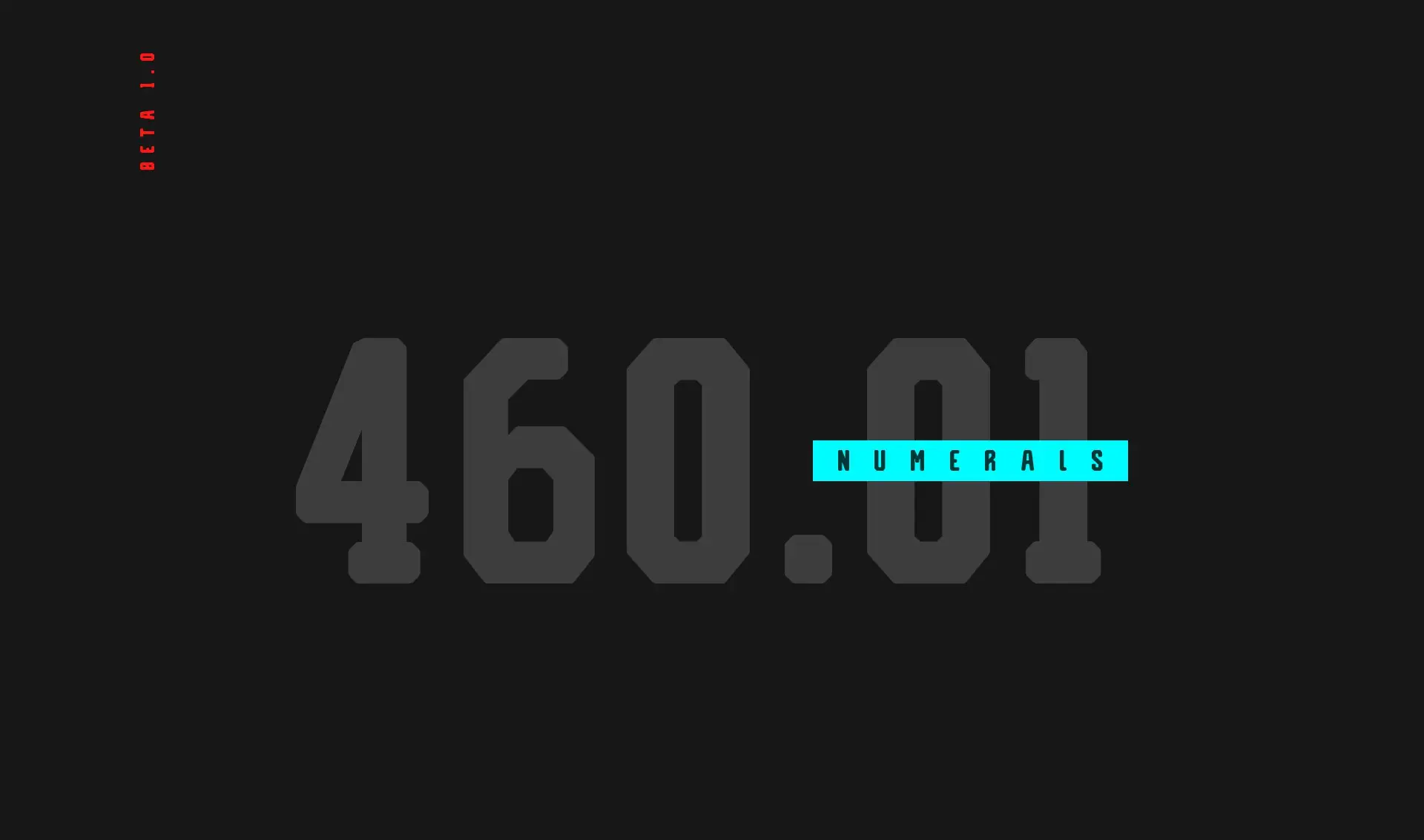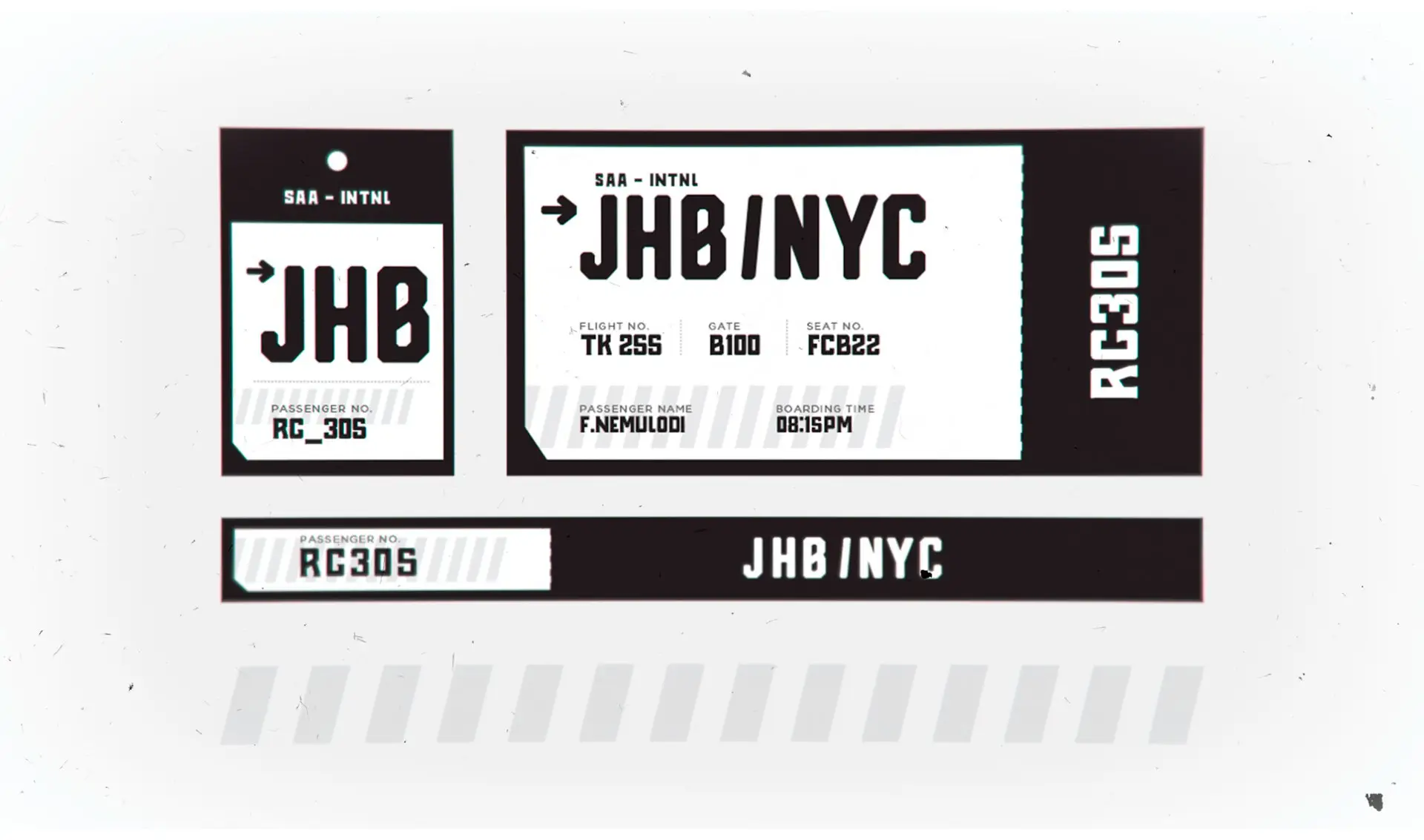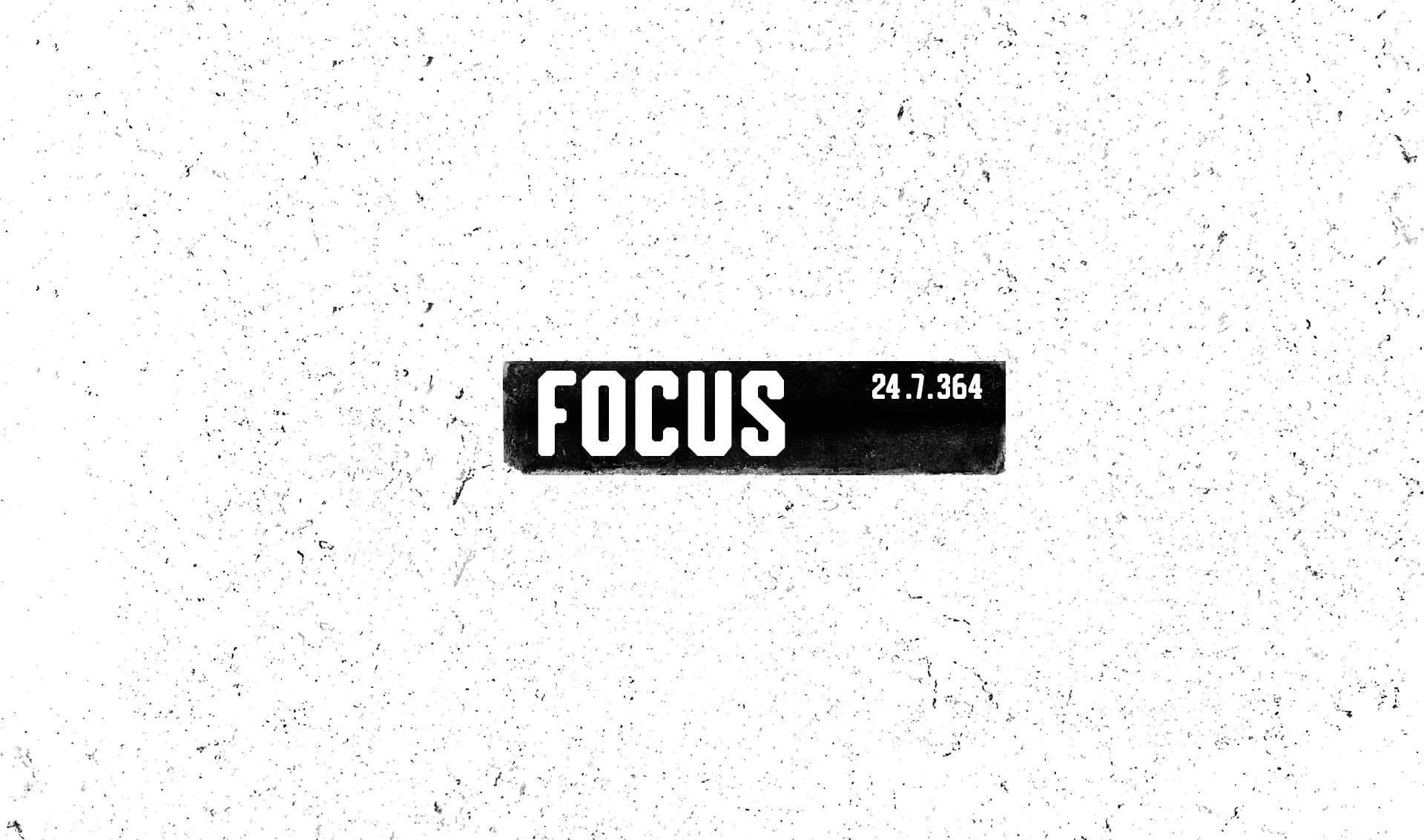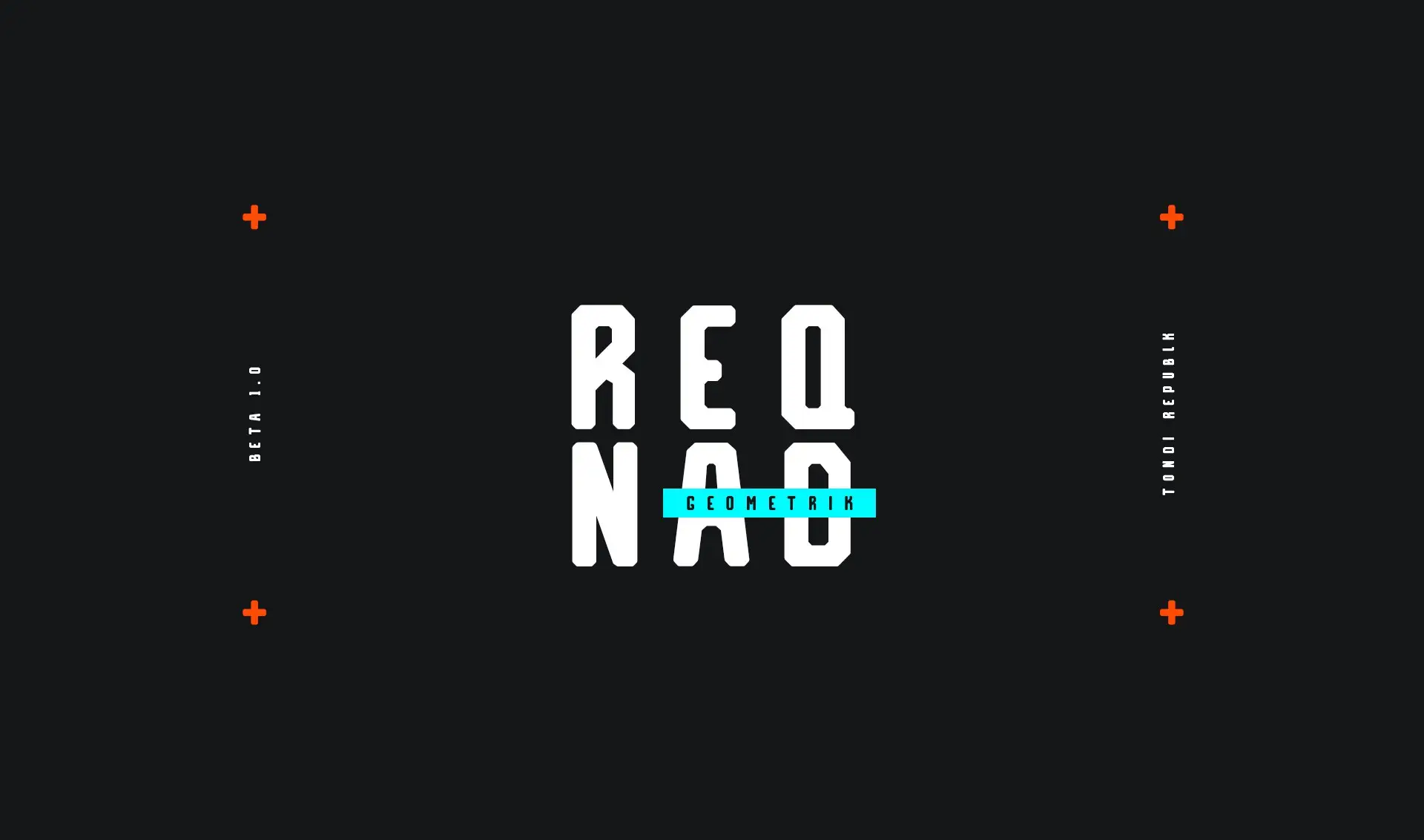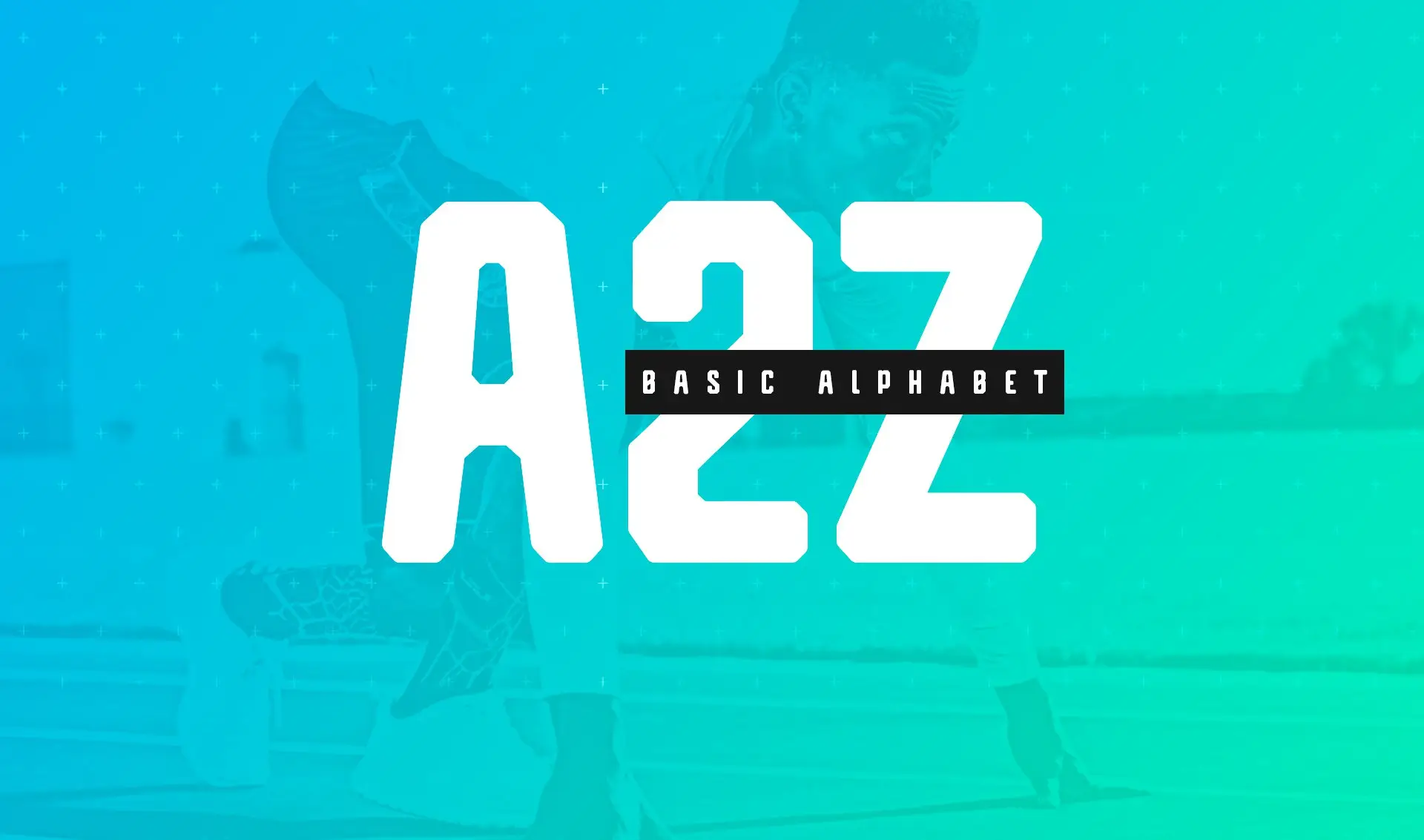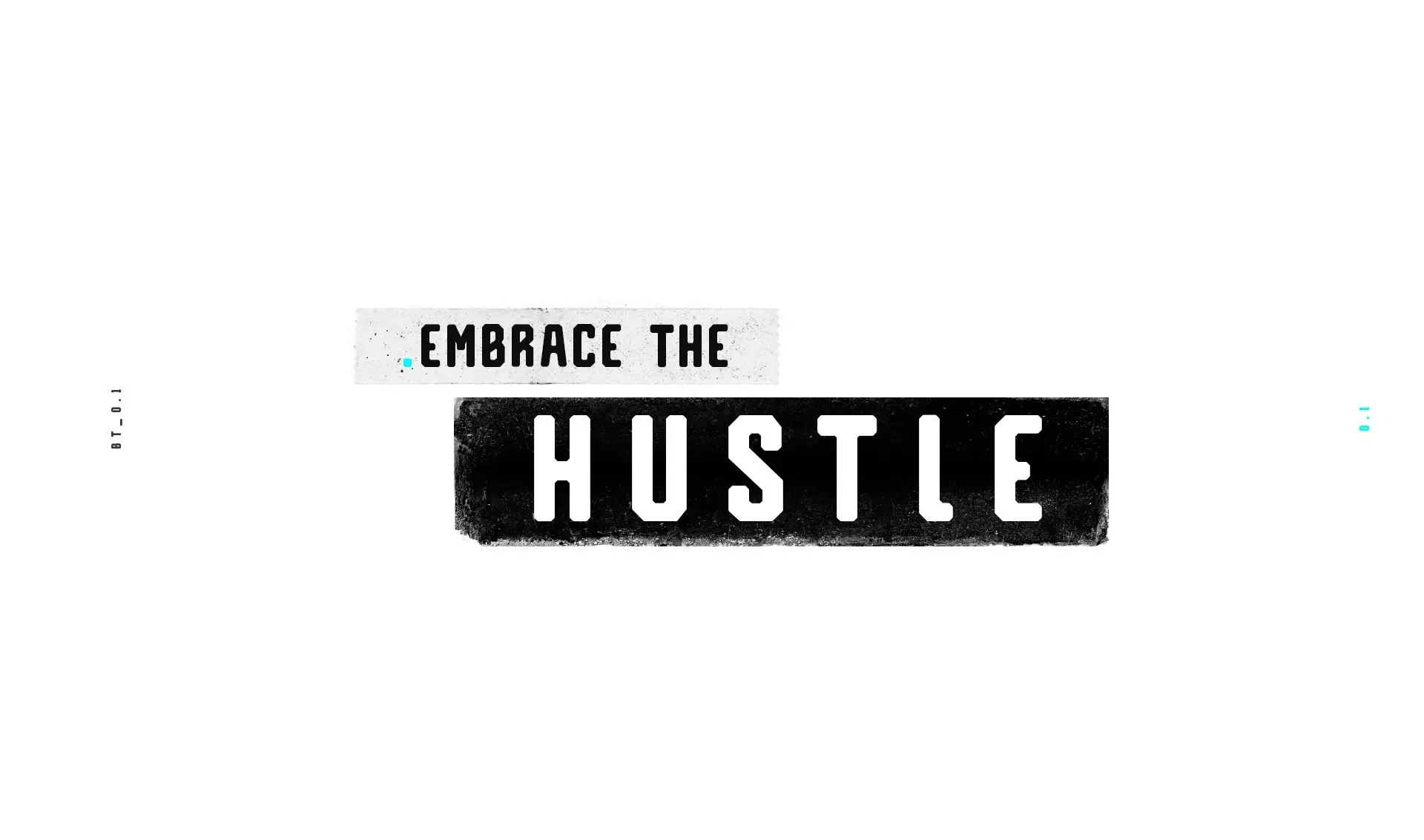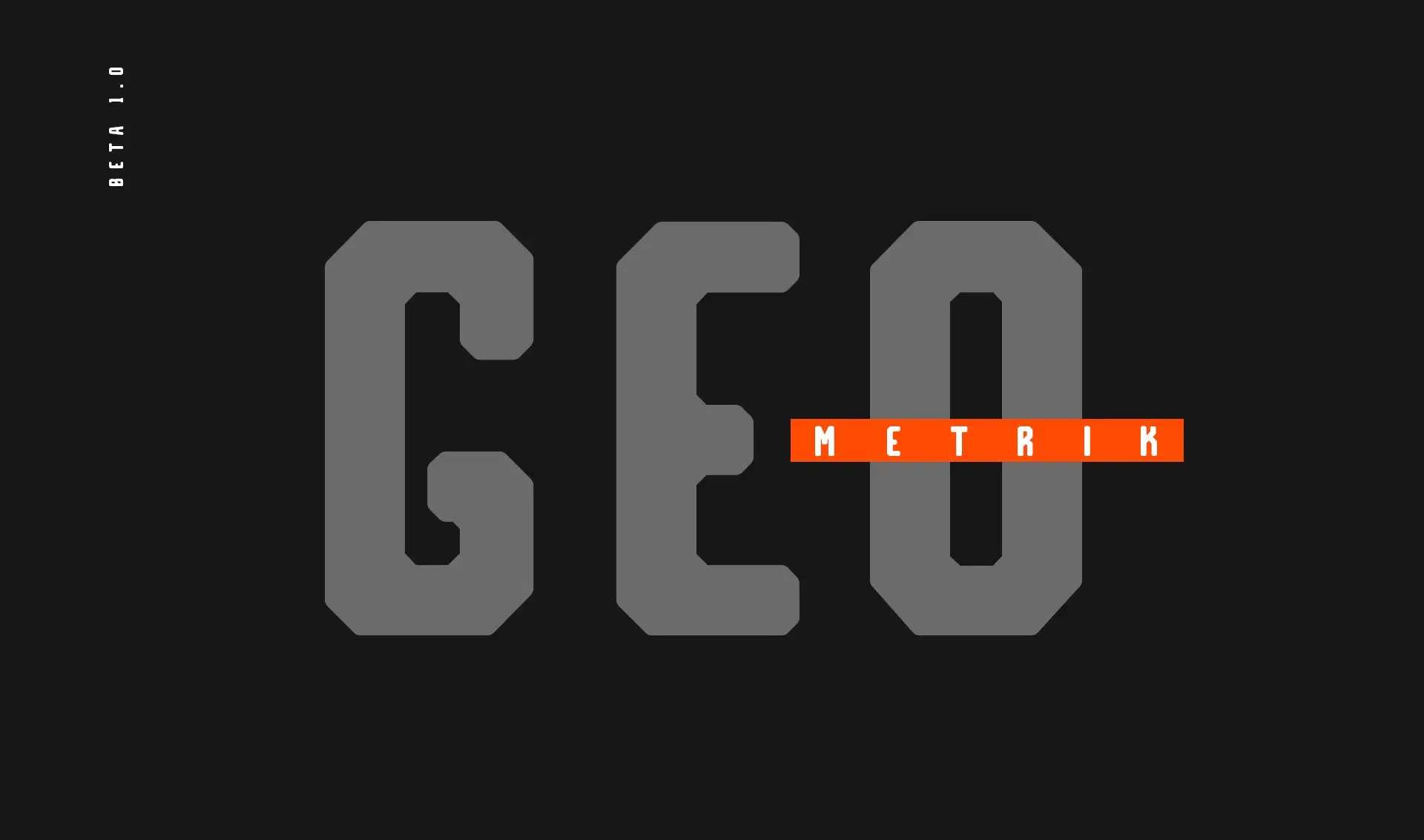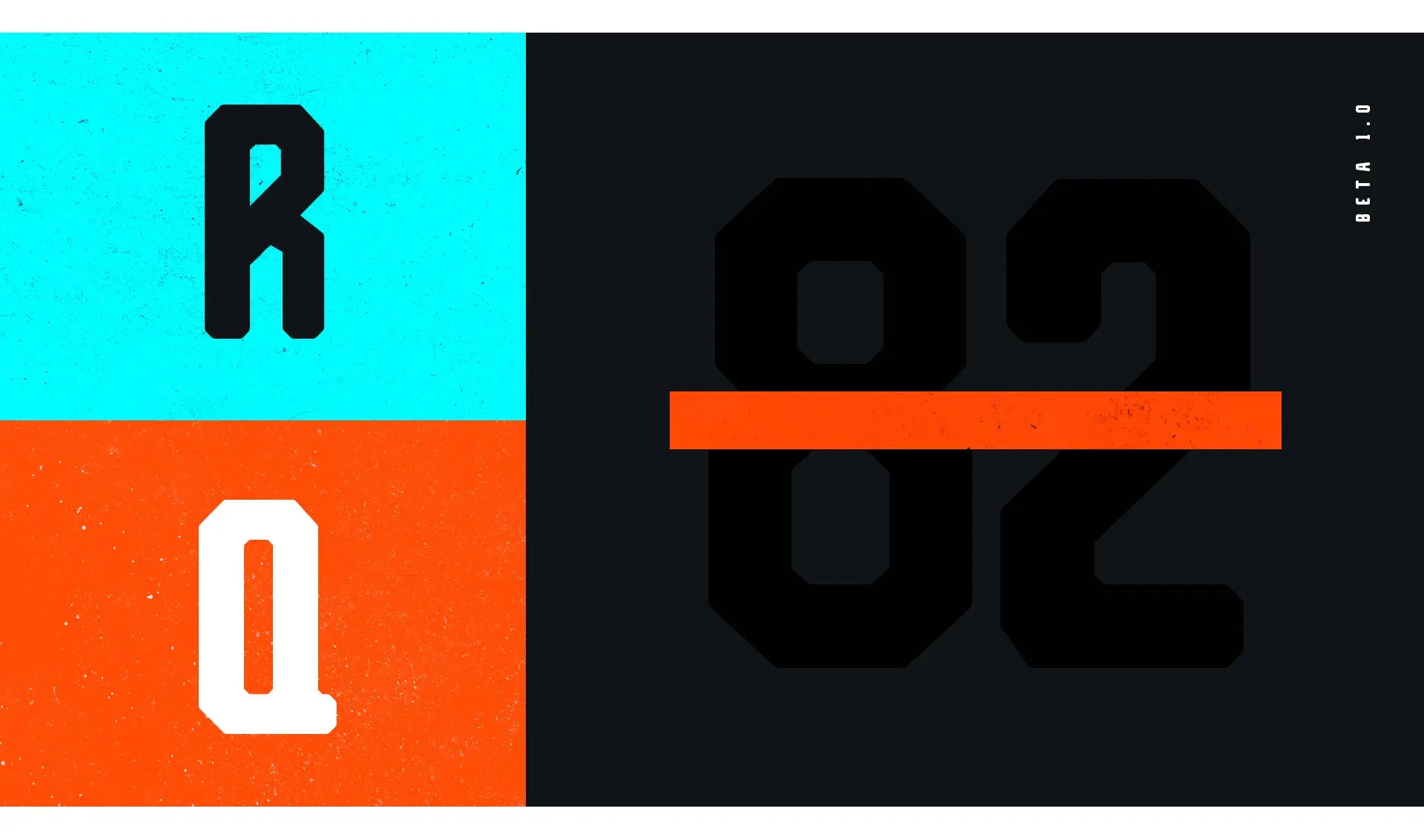
Reqnad Geometrik Font
Introducing the Reqnad Geometrik Font, a modern typeface that combines geometric precision with a touch of elegance. This font is designed for versatility, making it perfect for a variety of applications including branding, logos, web design, and print materials.
• Clean geometric shapes
• Multiple weights for flexibility
• Weights: Regular, Bold, Light
Utilize this font for a clean and contemporary look in your projects. Whether for digital or print, Reqnad Geometrik is designed to stand out while maintaining readability.